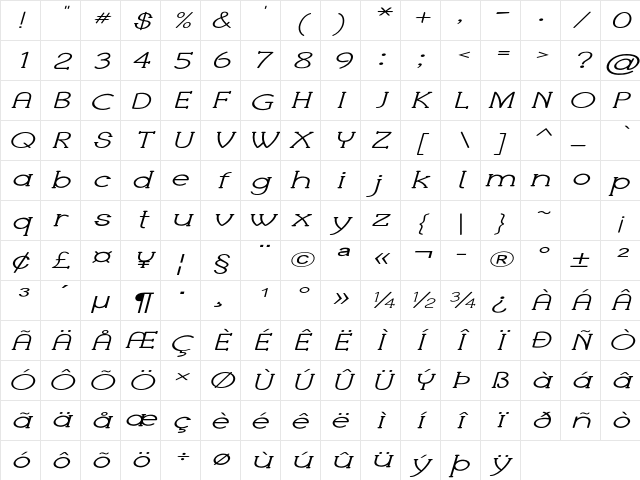
Halix Extra-expanded Italic
Style: Extra-expanded Italic
Halix Family
Halix Extra-expanded Italic
Design Context for Halix
Halix is a composed and adaptable typeface that performs quietly and consistently across a wide range of design contexts. The slanted form adds forward momentum and visual energy.
Pro Tip: Use Halix for emphasis, pull quotes, and subheadings where its slanted energy can add rhythm to the layout.